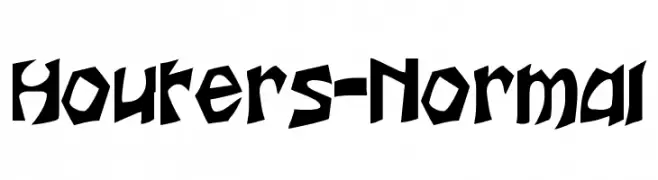
A narrow, italic font with a dynamic and modern style.
( Fonts by Rob Dobi - Toxic Type - www.dobi.nu )
A bold, dynamic font with sharp, angular strokes and a slanted, energetic style.
( Fonts by or from www.graffitifonts.net )
A graffiti-inspired font with a dynamic, hand-drawn style.
( Fonts by Dibujado )
A bold, dynamic handwritten font with smooth curves and a casual style.